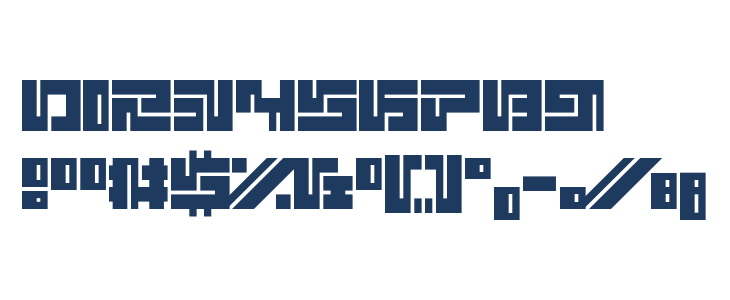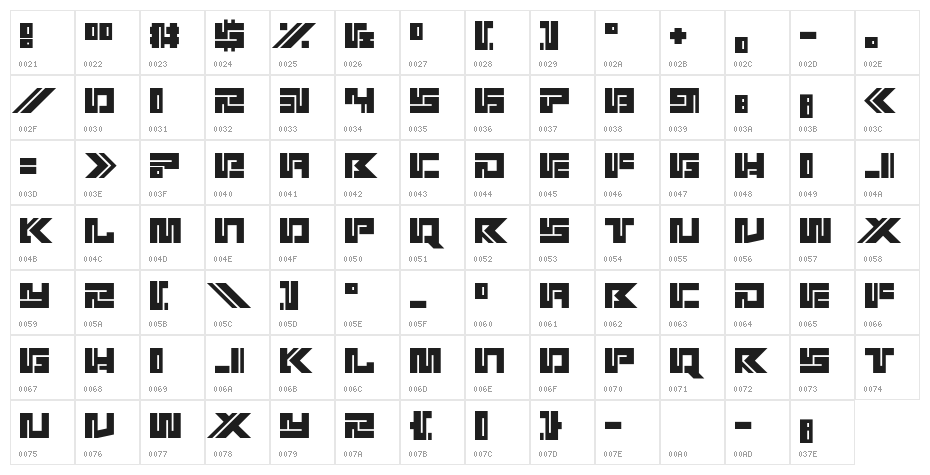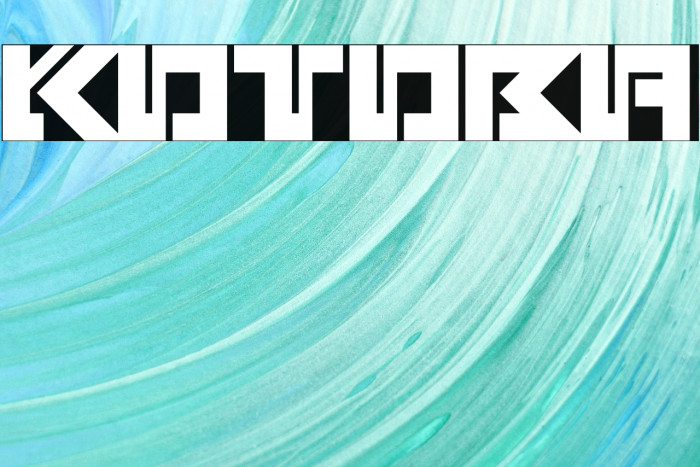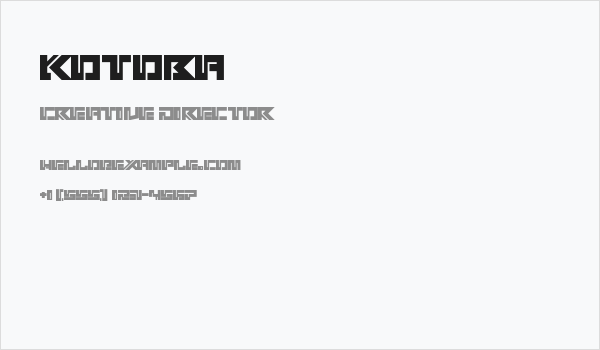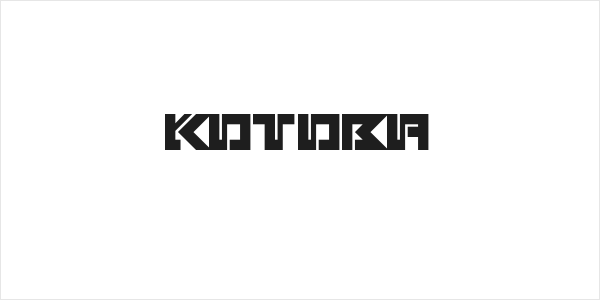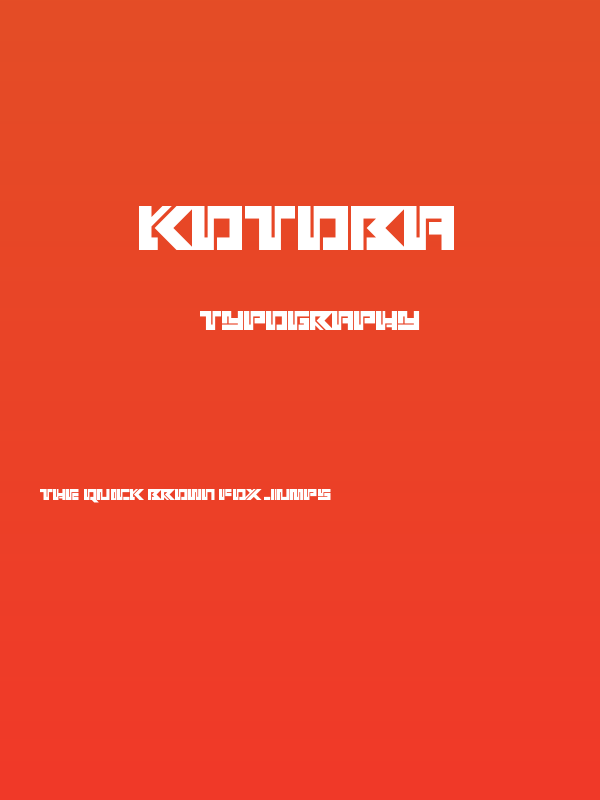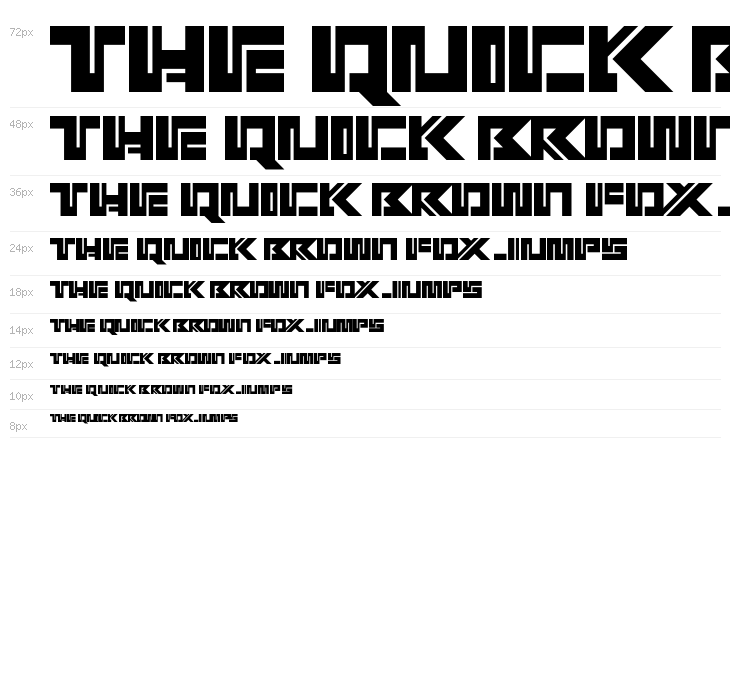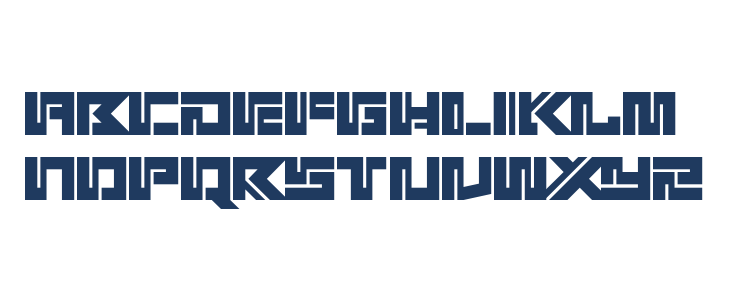
Kotoba Font
Kotoba Description
This font features a bold, geometric design with a futuristic aesthetic. Each character is constructed from thick, angular lines, creating a sense of strength and modernity. The uppercase and lowercase letters share a consistent style, with sharp edges and a blocky appearance. Numbers and special characters maintain this cohesive look, ensuring uniformity across all text. The font's unique structure makes it stand out, ideal for projects that require a striking visual impact. Its design is reminiscent of digital or sci-fi themes, making it suitable for creative and tech-oriented applications.